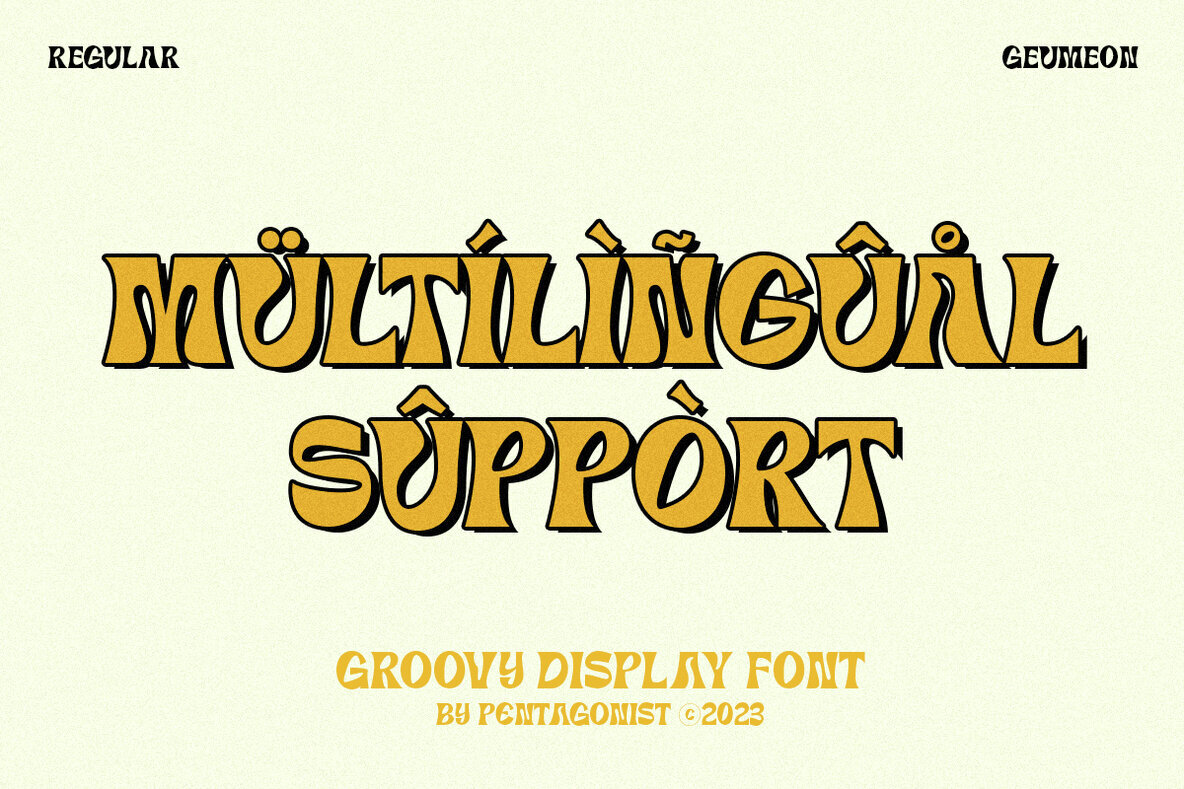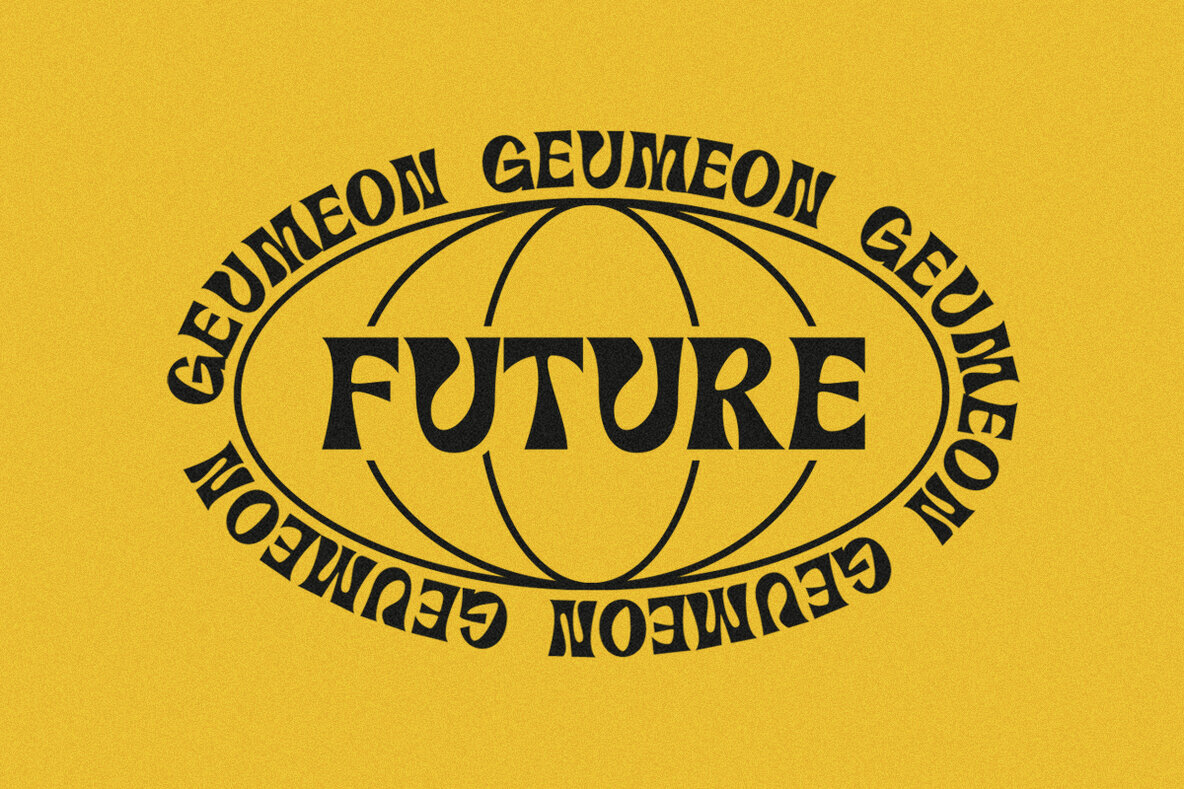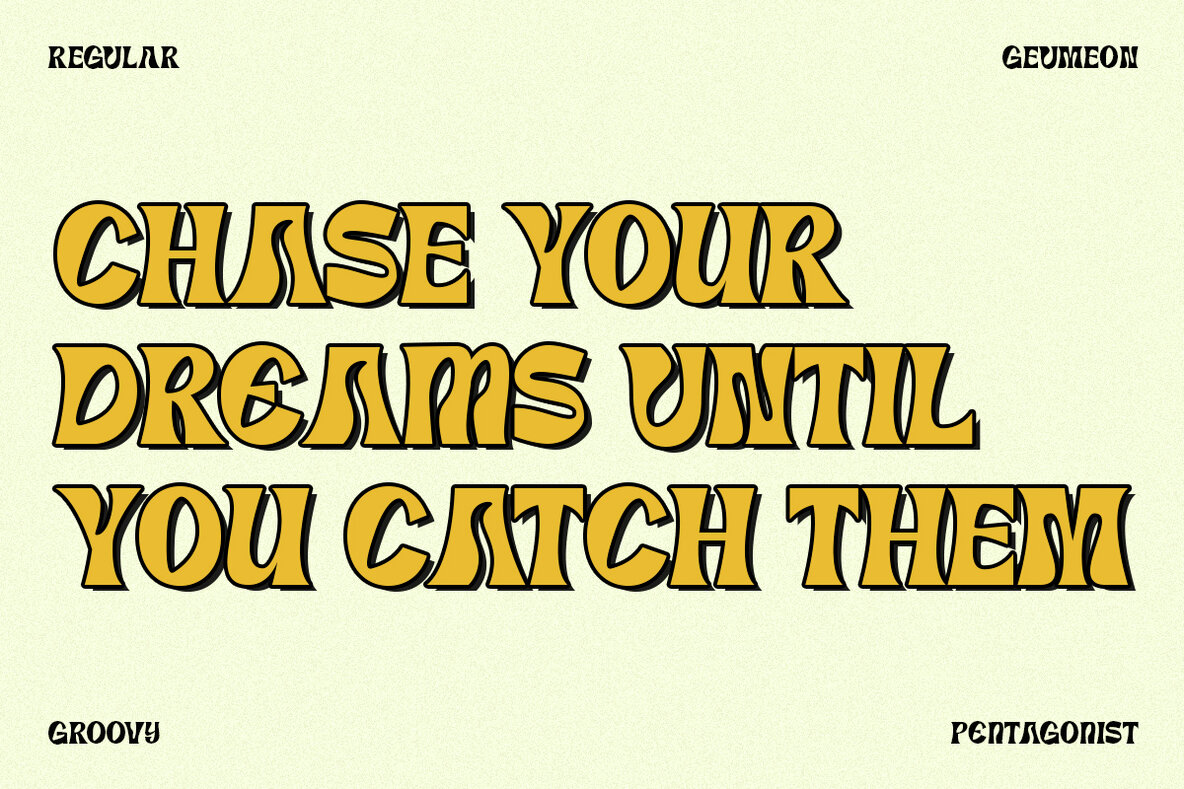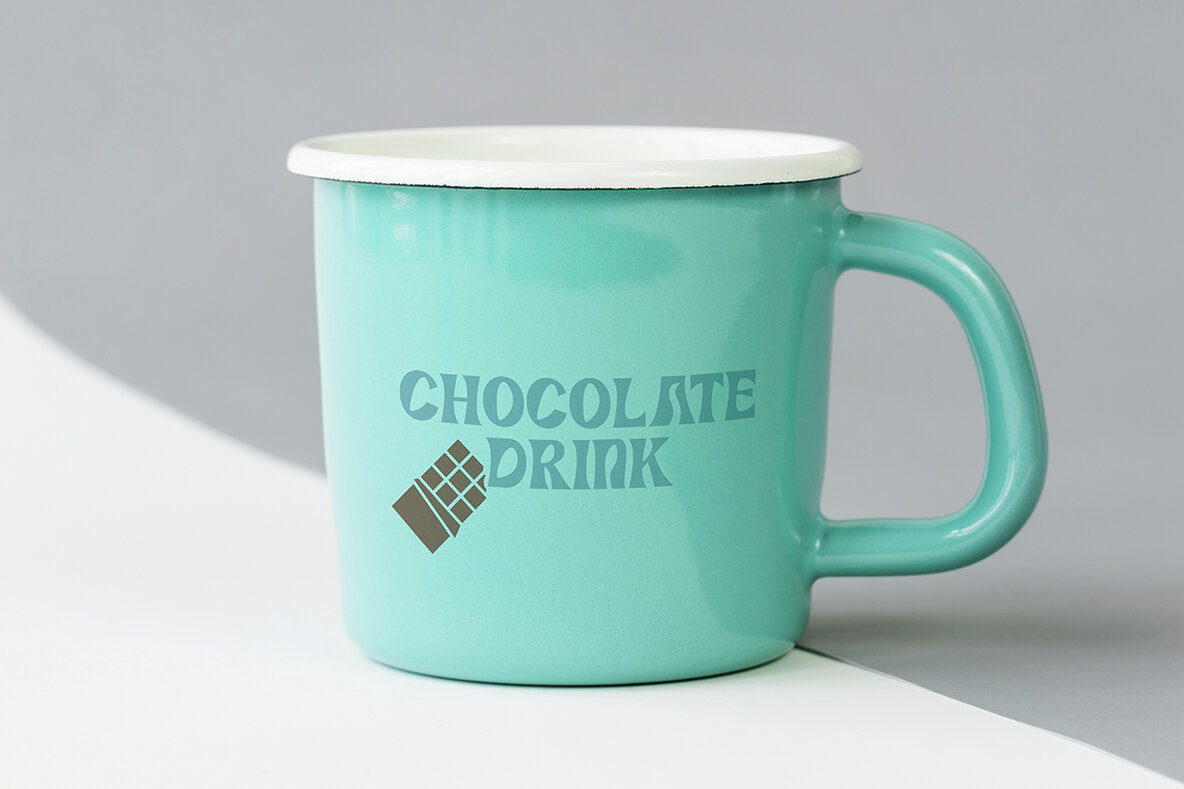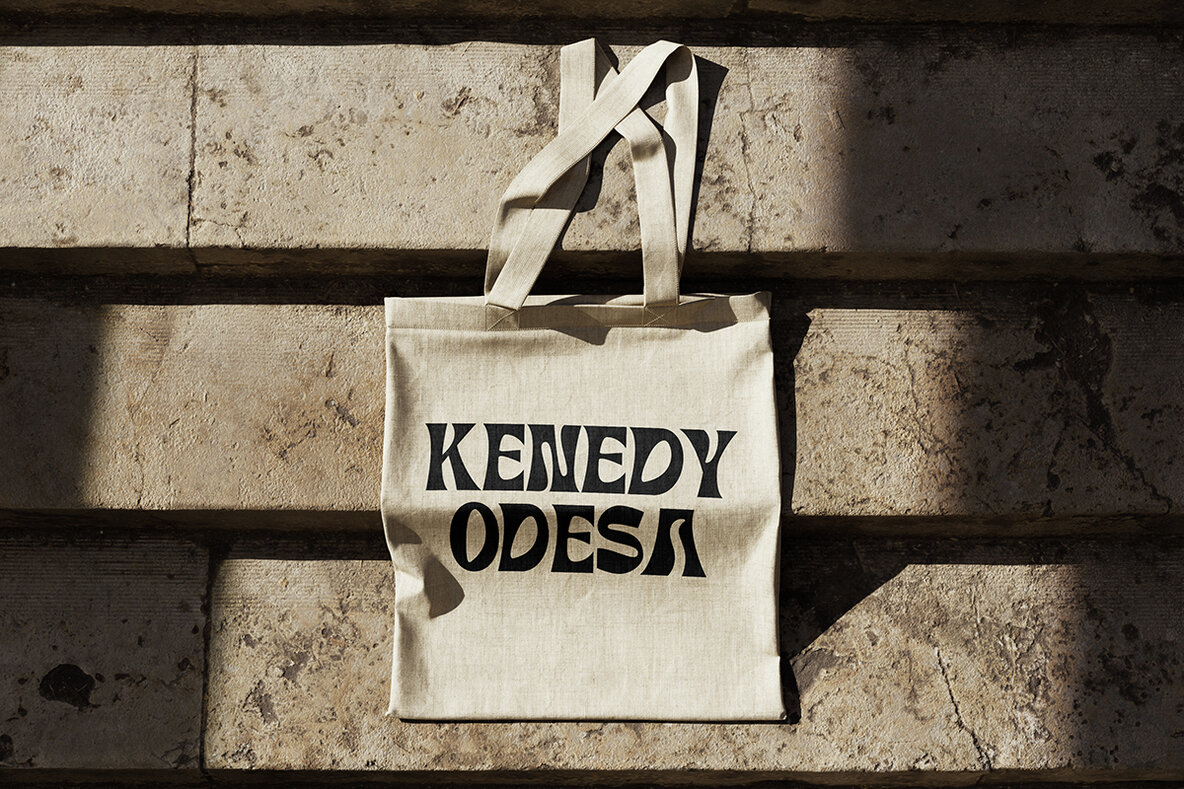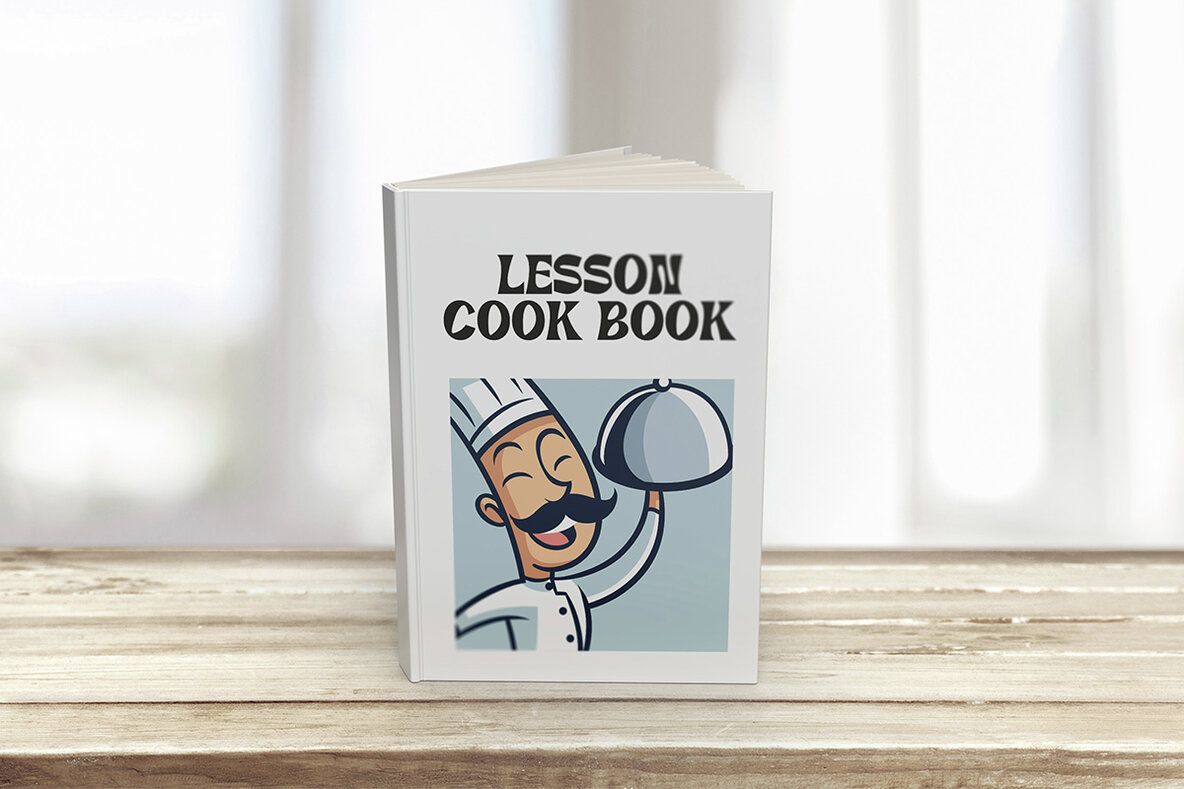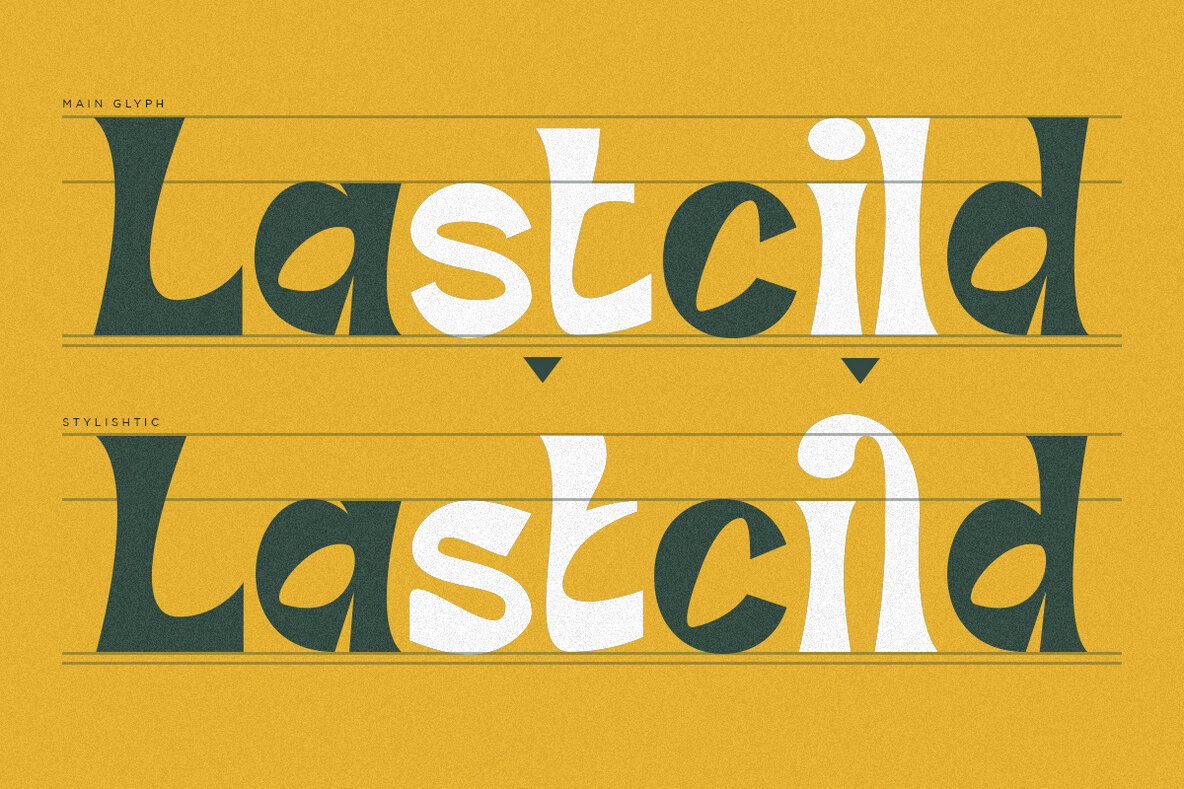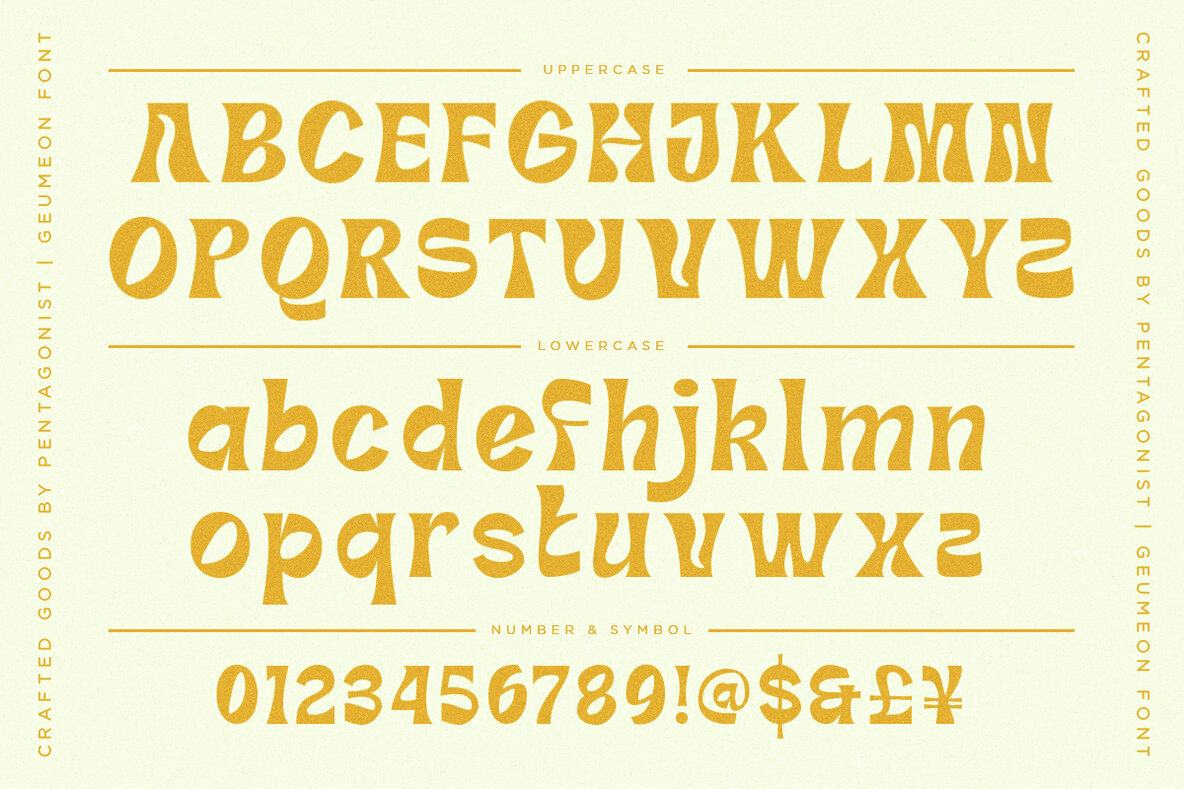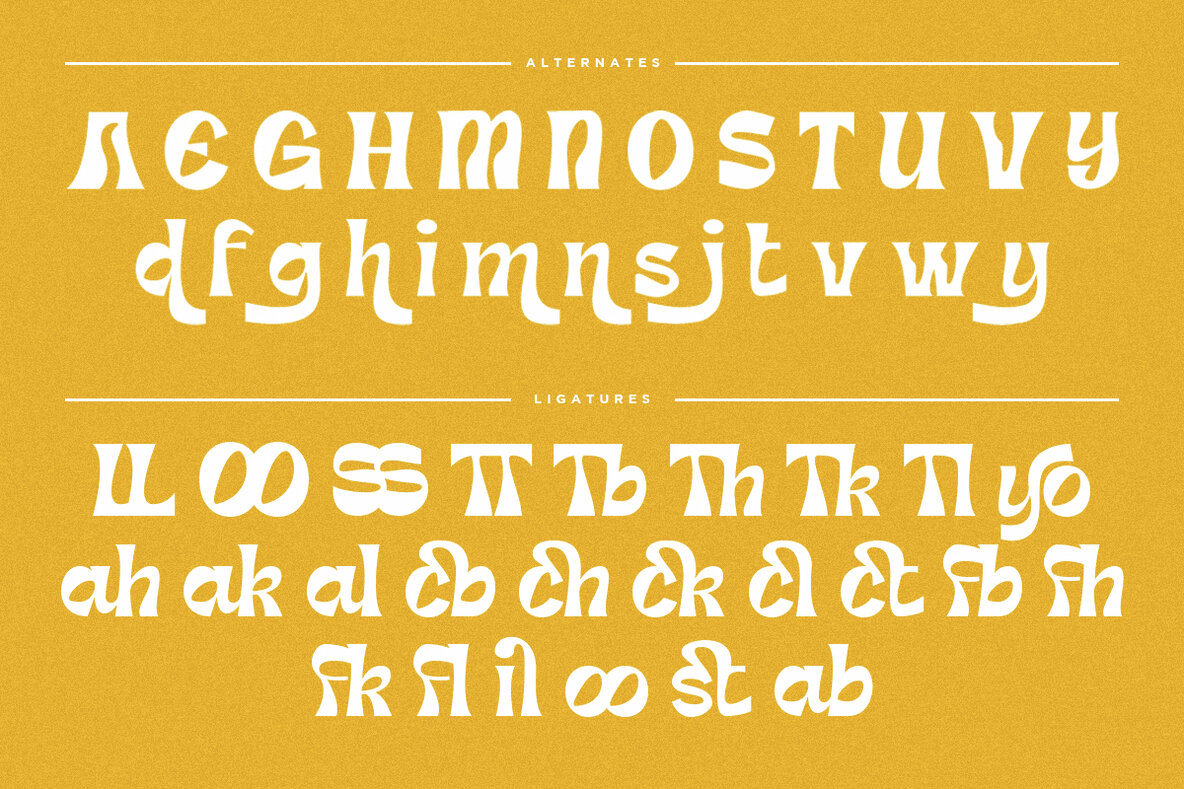
Geumeon Font
GEUMEON Regular
Geumeon is a distinctive display font inspired by the charm of retro and vintage styles. This groovy typeface brings a touch of nostalgia to your design projects, while maintaining a modern edge. For any licensing questions, it is crucial to contact the designer. Note that Geumeon may not be used for broadcasts, cinema, or motion pictures without proper licensing. Embedding in apps, games, or e-pubs is also restricted under the desktop license. No specialized software is needed to utilize this font. You can use Geumeon in any basic programs and website applications that support standard fonts. For future updates, additional glyphs, and language support, make sure to follow the shop. Feel free to reach out with any special requests or for including additional language support.Geumeon: Retro-Inspired Groovy Display Font